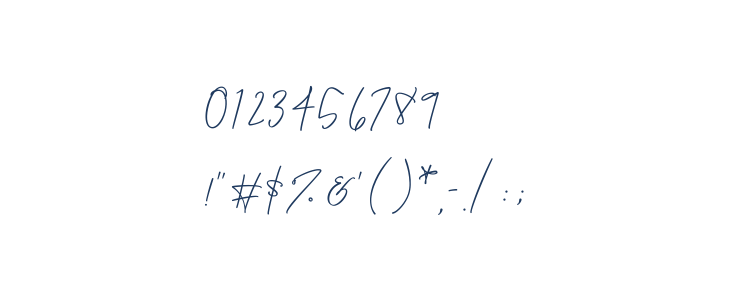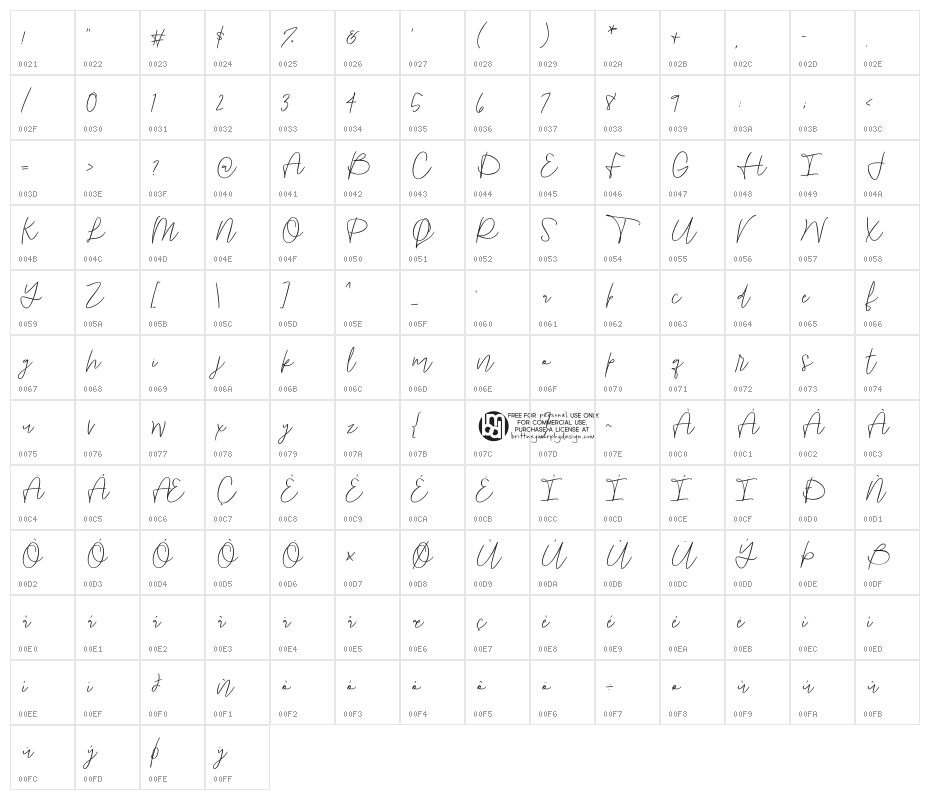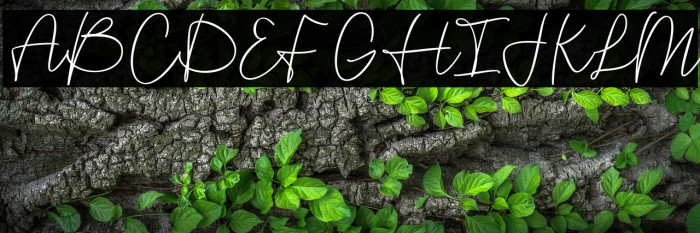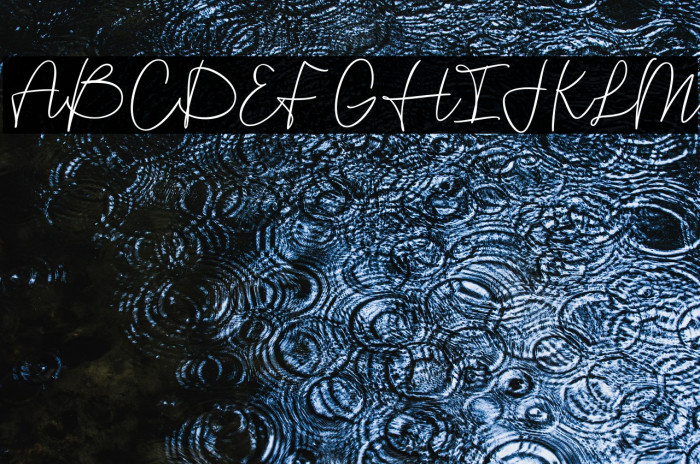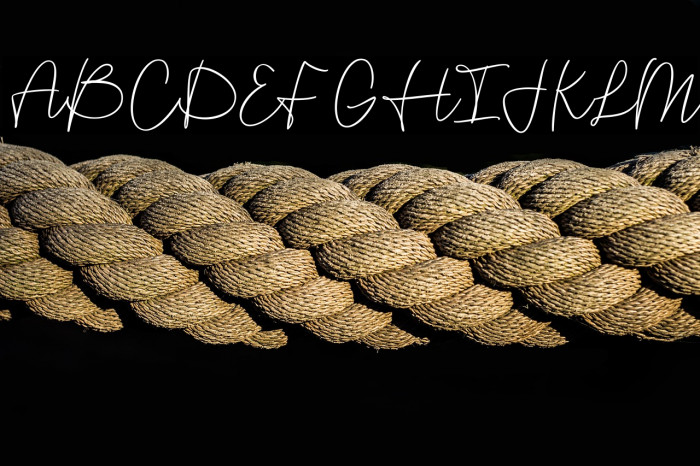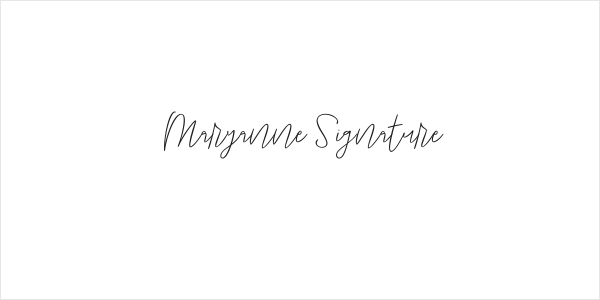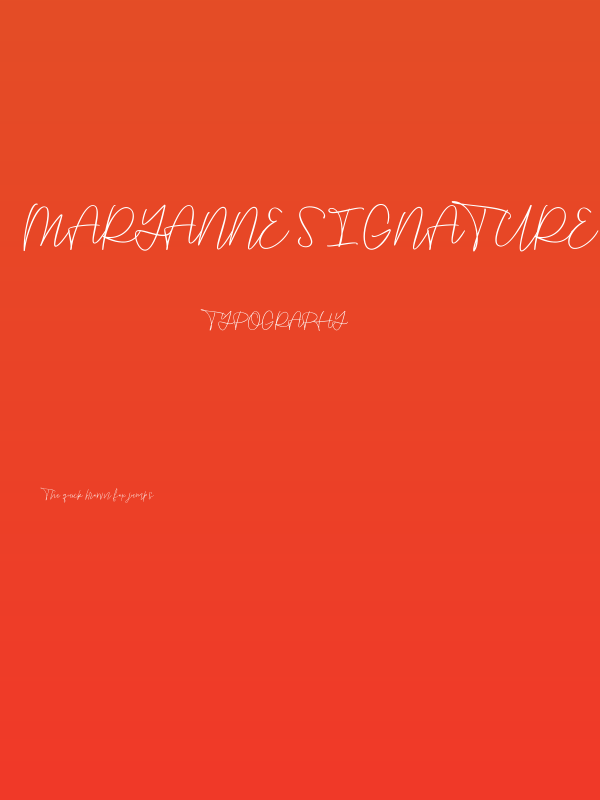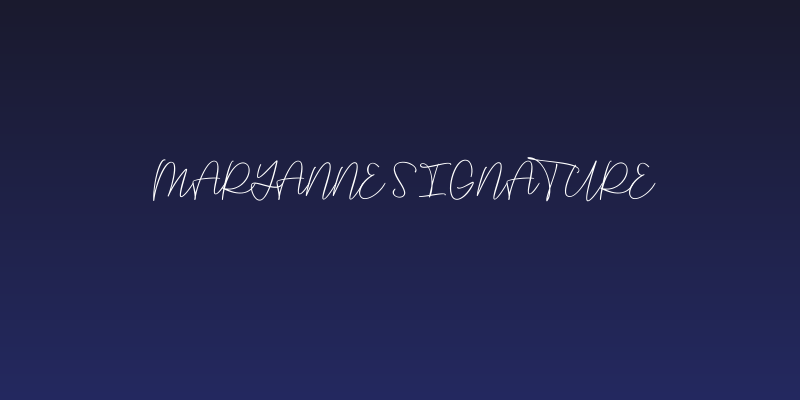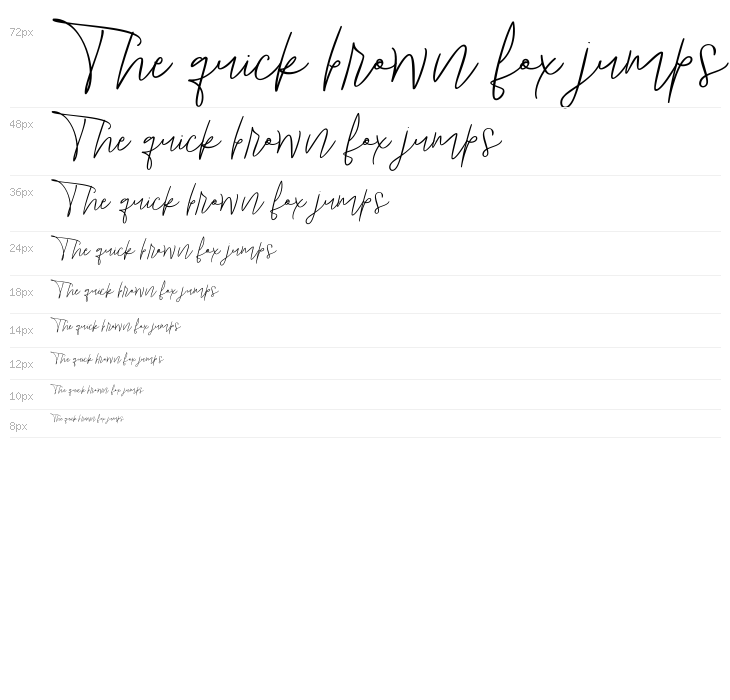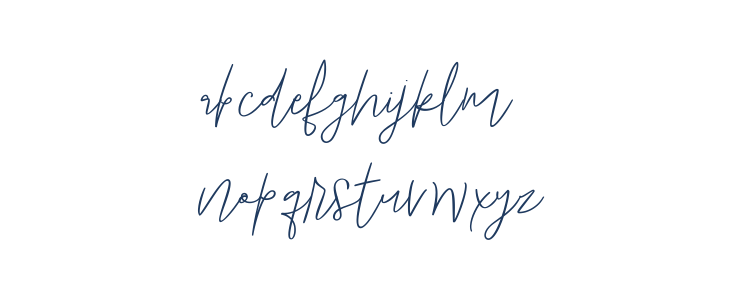
Maryanne Signature Font
Maryanne Signature Description
This font exudes a personal and artistic flair, reminiscent of elegant handwriting. The characters are fluid and connected, giving a sense of motion and continuity. Each letter is crafted with a distinct style, featuring loops and curves that add a touch of sophistication. The uppercase letters are bold and expressive, while the lowercase letters maintain a delicate and graceful appearance. Numbers and special characters are designed to complement the overall aesthetic, ensuring consistency throughout. This font is ideal for projects that require a personal touch, such as invitations, greeting cards, or branding materials.
| Overall Style | Elegant and Artistic |
| Proposed Projects | Ideal for invitations, greeting cards, personal branding, and artistic projects. |